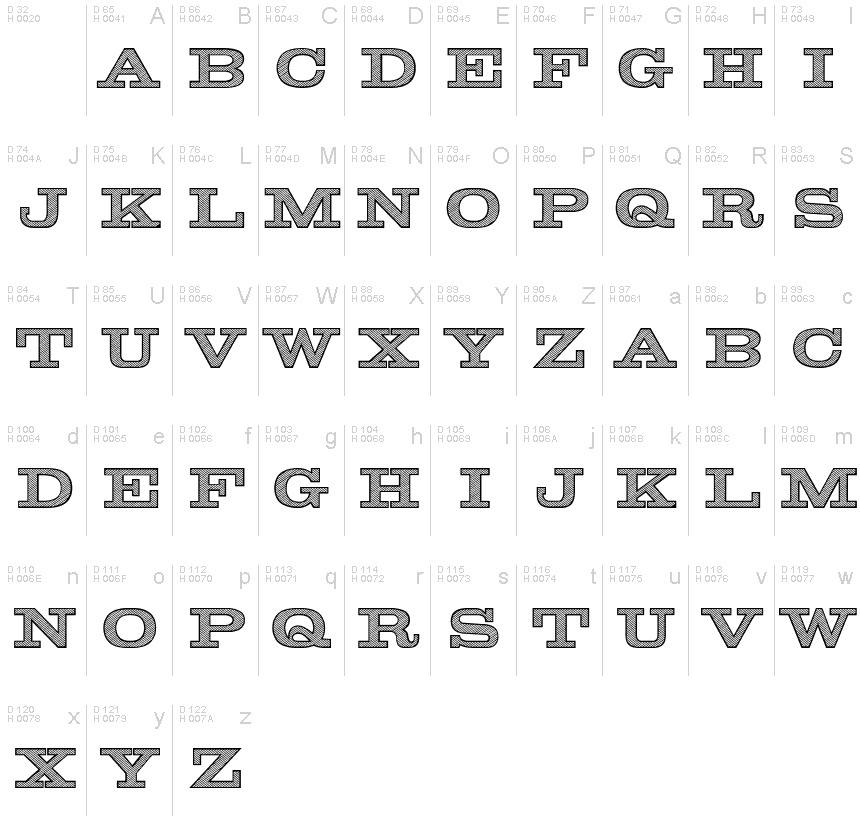
Pen Regular
Pen font is a creative, decorative slab serif typeface crafted by renowned designer Vladimir Nikolic. Its wide width makes it perfect for projects such as logos, posters, headlines and book covers that demand strong visual impact.